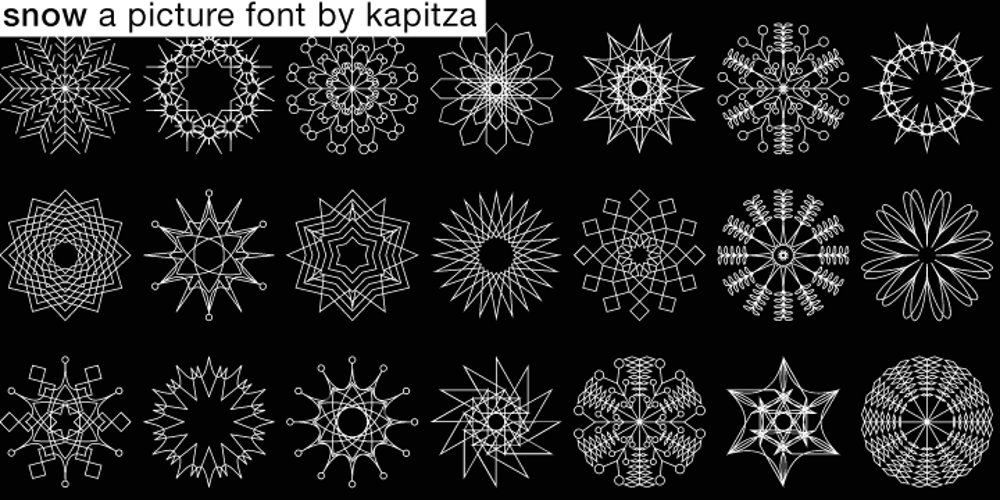
Snow Font Family was designed by published by kapitza. Snow contains 1 styles and family package options. The inspiration behind Snow, Kapitza’s 2009 festive font, is the beauty of snow crystals and the interplay between their unique designs.